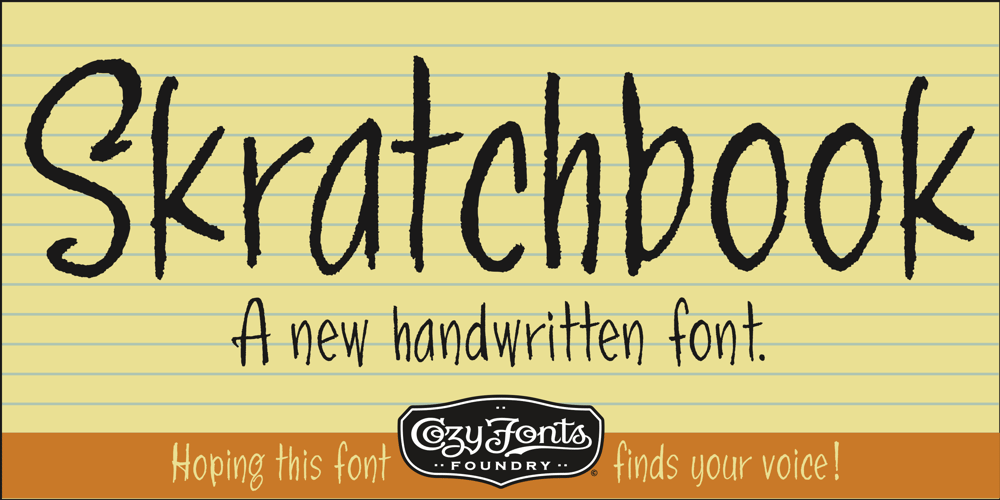
Skratchbook Font Family was designed by Tom Nikosey and published by CozyFonts. Skratchbook contains 3 styles and family package options. Skratchbook is a new handwritten font from the sketch pad of designer Tom Nikosey of CozyFonts. The family exists in 3 versions, Regular, Italic, & Back Italic. This font is a casual, coarse style meant to be used for personality and spontaneity. It’s style conjurs anything from quick grocery lists to Halloween Party invites. It maintains amazing legibility in small sizes and it’s true personality is revealed the larger it is set! Hoping this font finds your voice! Skratchbook, New from CozyFonts Foundry.